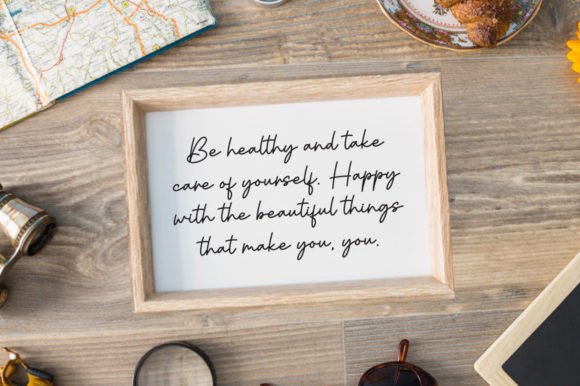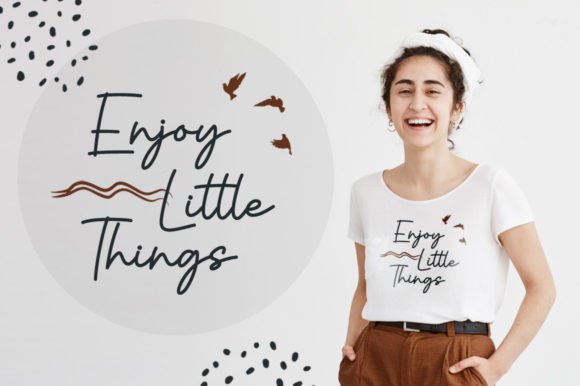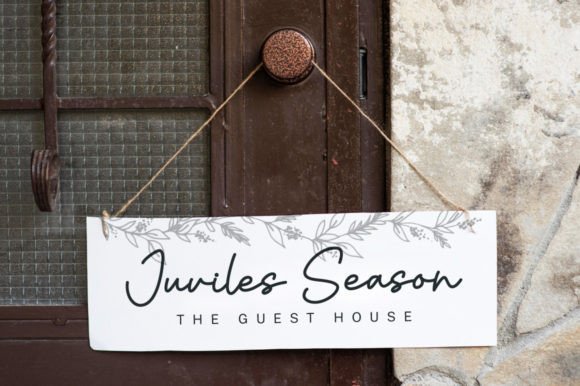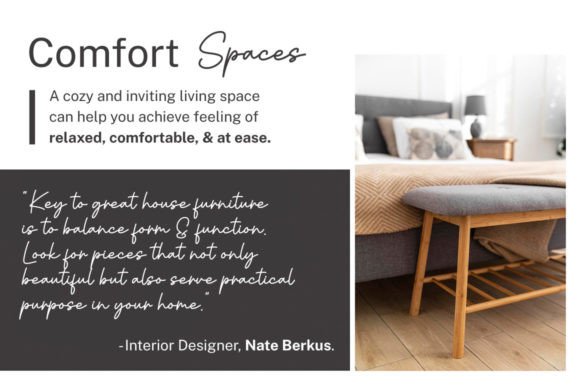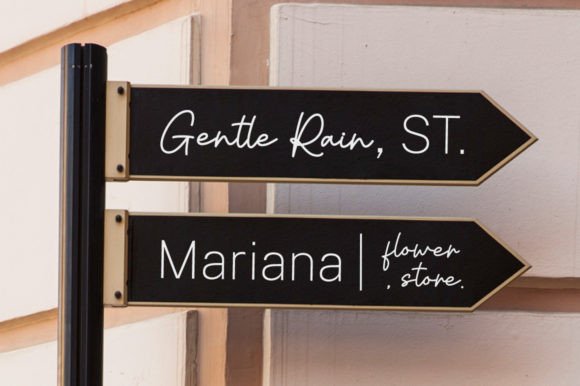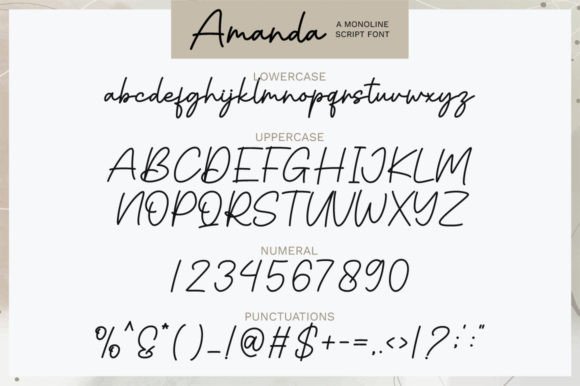
Amanda Font: The Timeless Handwritten Choice for Designers and Crafters
Amanda Font is a beautiful and elegant handwritten font that has captured the hearts of designers and crafters alike. With its lovely and timeless feel, it’s the perfect choice for creating eye-catching logos, branding, and quotes that stand out from the crowd. In this article, we’ll dive into the world of Amanda Font, exploring its features, benefits, and uses, as well as provide tips and inspiration for incorporating it into your design projects.
The Characteristics of Amanda Font
Amanda Font is a carefully crafted handwritten font that exudes warmth and personality. Its unique characteristics make it an excellent choice for a wide range of design applications. Here are some of the key features that set Amanda Font apart:
- Timeless feel: Amanda Font has a classic, timeless feel that never goes out of style. Its elegant letterforms and flowing connections evoke a sense of nostalgia and sophistication.
- Handwritten charm: The font’s handwritten nature gives it a personal and approachable feel, making it perfect for creating logos, branding, and quotes that resonate with audiences.
- Legibility: Despite its ornate nature, Amanda Font is remarkably legible, even at smaller sizes. This makes it an excellent choice for body text, headings, and titles.
- Versatility: Amanda Font is highly versatile and can be used in a wide range of design applications, from logos and branding to quotes, posters, and more.
Benefits of Using Amanda Font
So, why should you choose Amanda Font for your design projects? Here are just a few benefits of using this lovely font:
- Emotional connection: Amanda Font’s handwritten nature and timeless feel help create an emotional connection with your audience, making your designs more relatable and engaging.
- Unique identity: With Amanda Font, you can create a unique and distinctive visual identity for your brand or project, setting you apart from the competition.
- Ease of use: The font’s legibility and versatility make it easy to use in a wide range of design applications, saving you time and effort.
- Inspiration: Amanda Font’s elegant letterforms and flowing connections can inspire your creativity, helping you to come up with fresh ideas and innovative designs.
Using Amanda Font in Design Projects
So, how can you incorporate Amanda Font into your design projects? Here are a few ideas to get you started:
- Logos and branding: Use Amanda Font to create eye-catching logos and branding materials that reflect your brand’s personality and values.
- Quotes and posters: Create inspiring quotes and posters using Amanda Font, perfect for social media, blogs, or print materials.
- Headings and titles: Use Amanda Font as a heading or title font to add a touch of elegance and sophistication to your designs.
- Body text: Amanda Font’s legibility makes it an excellent choice for body text, especially for smaller sizes.
Tips for Working with Amanda Font
Here are a few tips to help you get the most out of Amanda Font:
- Experiment with sizes: Amanda Font looks great at a wide range of sizes, so don’t be afraid to experiment and find the perfect size for your design.
- Play with colors: The font’s elegant letterforms and flowing connections look great in a variety of colors, so try out different color combinations to find the one that works best for your design.
- Mix and match: Amanda Font pairs well with a wide range of fonts, so feel free to mix and match it with other fonts to create a unique and interesting visual effect.
| Author | Nirmala Creative |
Amanda Font is a lovely and timeless handwritten font that is perfect for designers and crafters looking to add a touch of elegance and sophistication to their designs. With its unique characteristics, benefits, and versatility, it’s an excellent choice for a wide range of design applications. Whether you’re creating logos, branding, quotes, or posters, Amanda Font is sure to inspire your creativity and help you create stunning designs that stand out from the crowd.